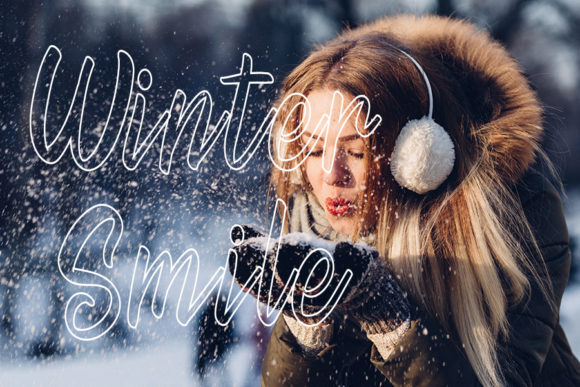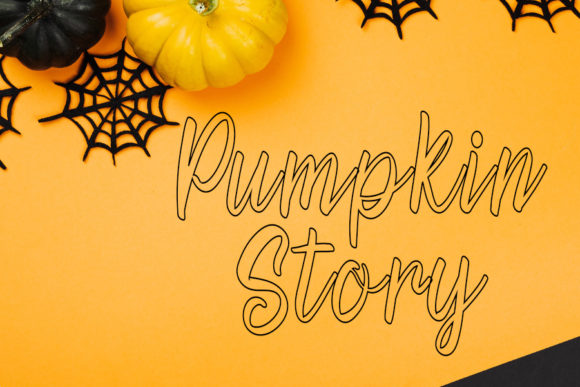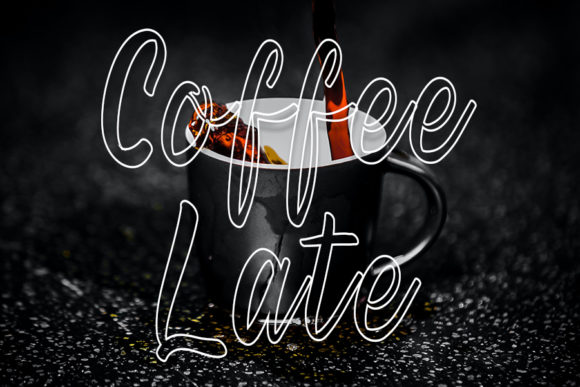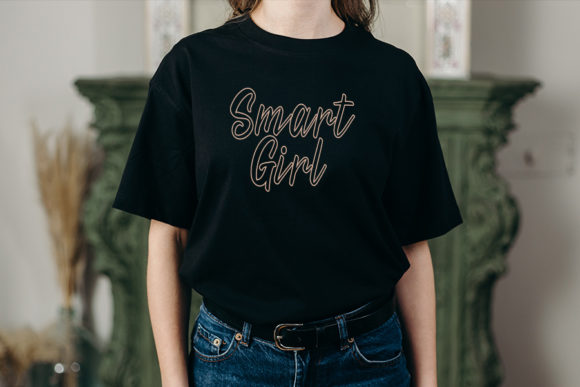
Hello Aliya Font
About Hello Aliya Font
Hello Aliya is a handwritten, outlined font with a playful script typeface. The transparent inside makes it very unique and interesting for your next design such as wedding invitations, thank you cards, weddings, greeting cards, logos and so on.